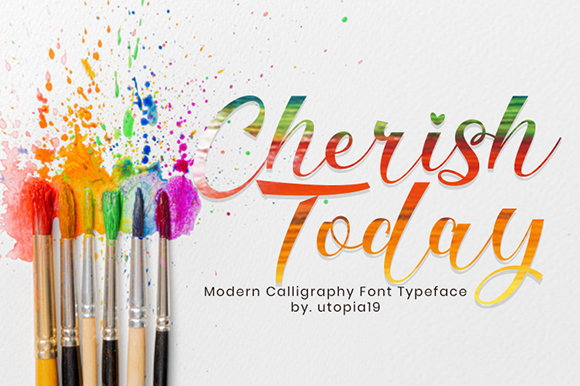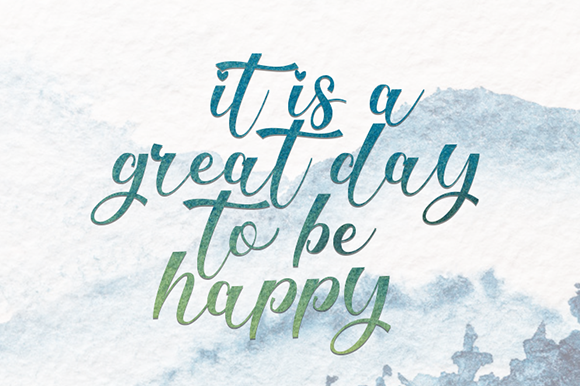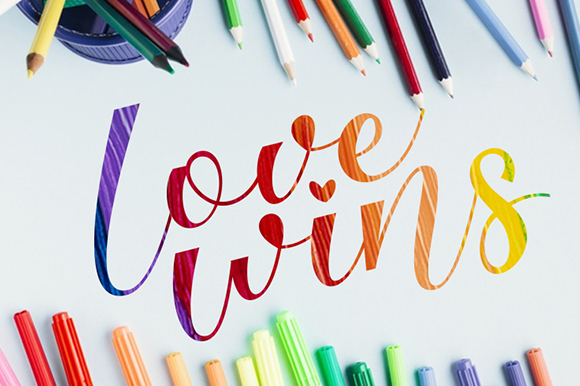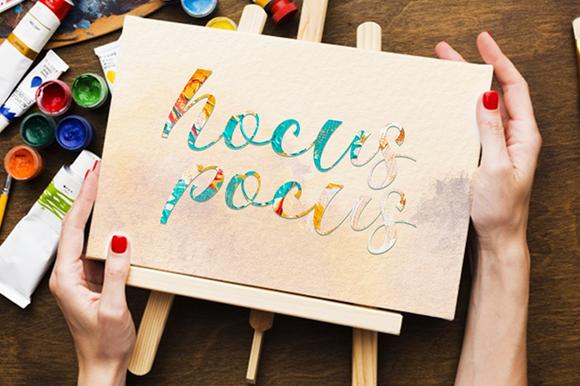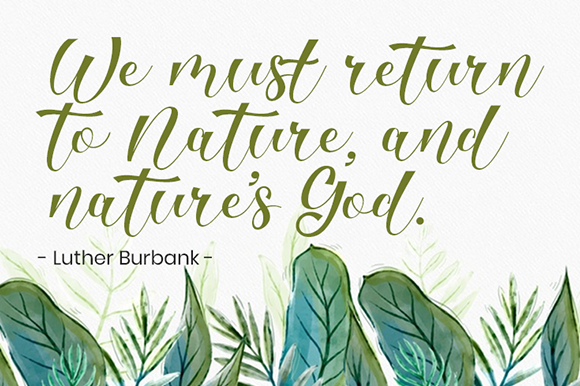
About Cherish Today Font
Cheerish Today feels sophisticated and modern. It features an elegant & fun styles and it can be used for various purposes, such as logos, wedding invitation, t-shirt, letterhead, signage, news, posters, badges and more!